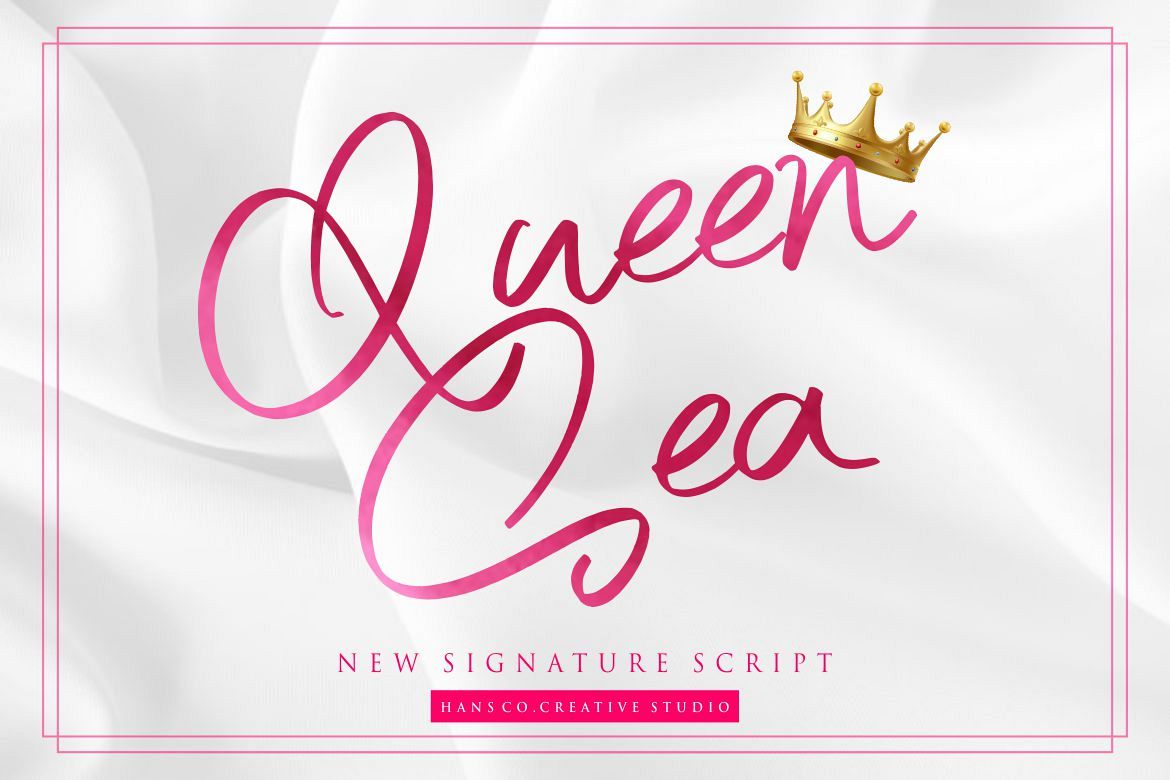
Queen Sea is a fun script font with a curly alternate and swashes. This collection of scripts is perfect for logo, signature, gift products like a shirts or greeting cards and many more. This font come with standard international languange support.